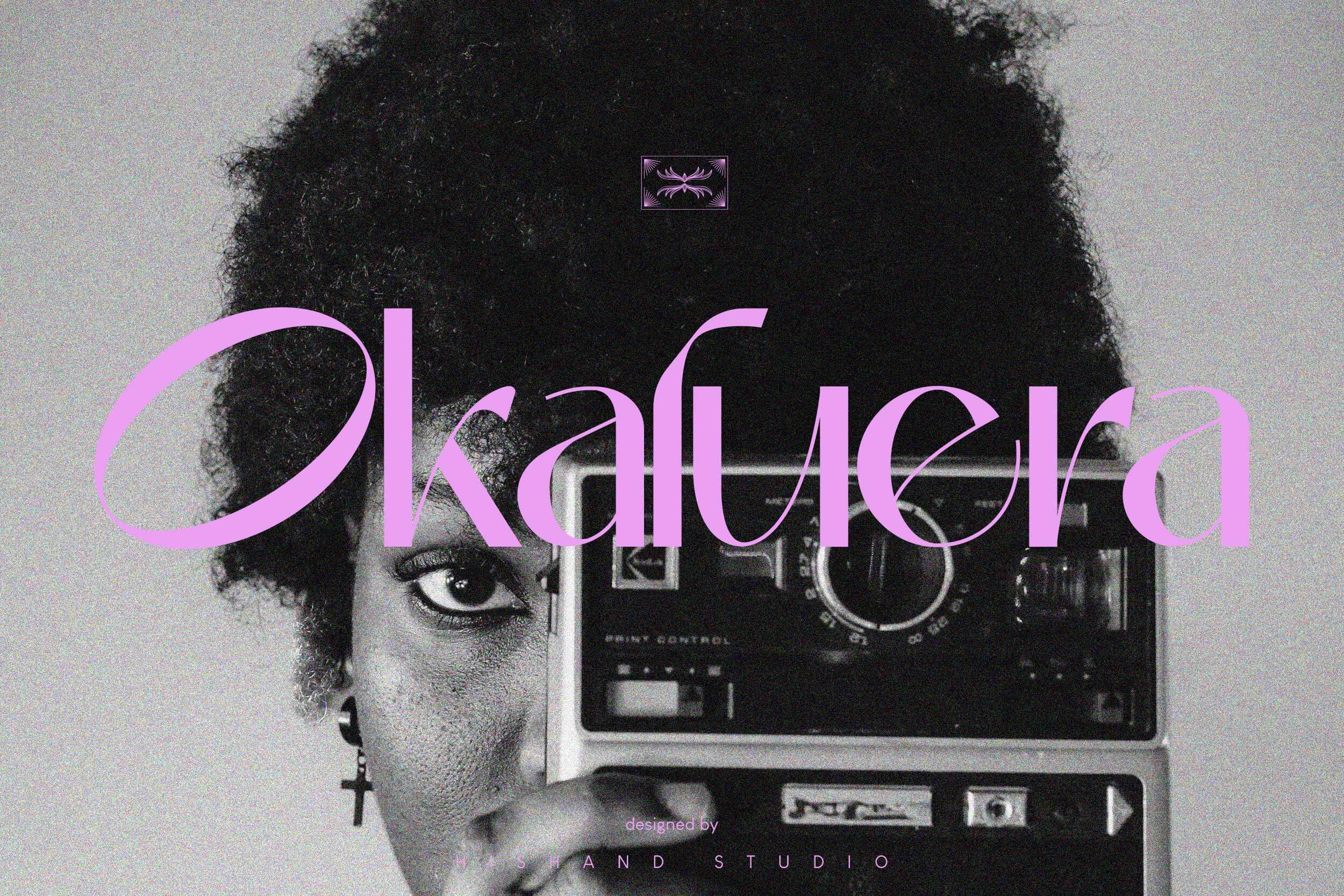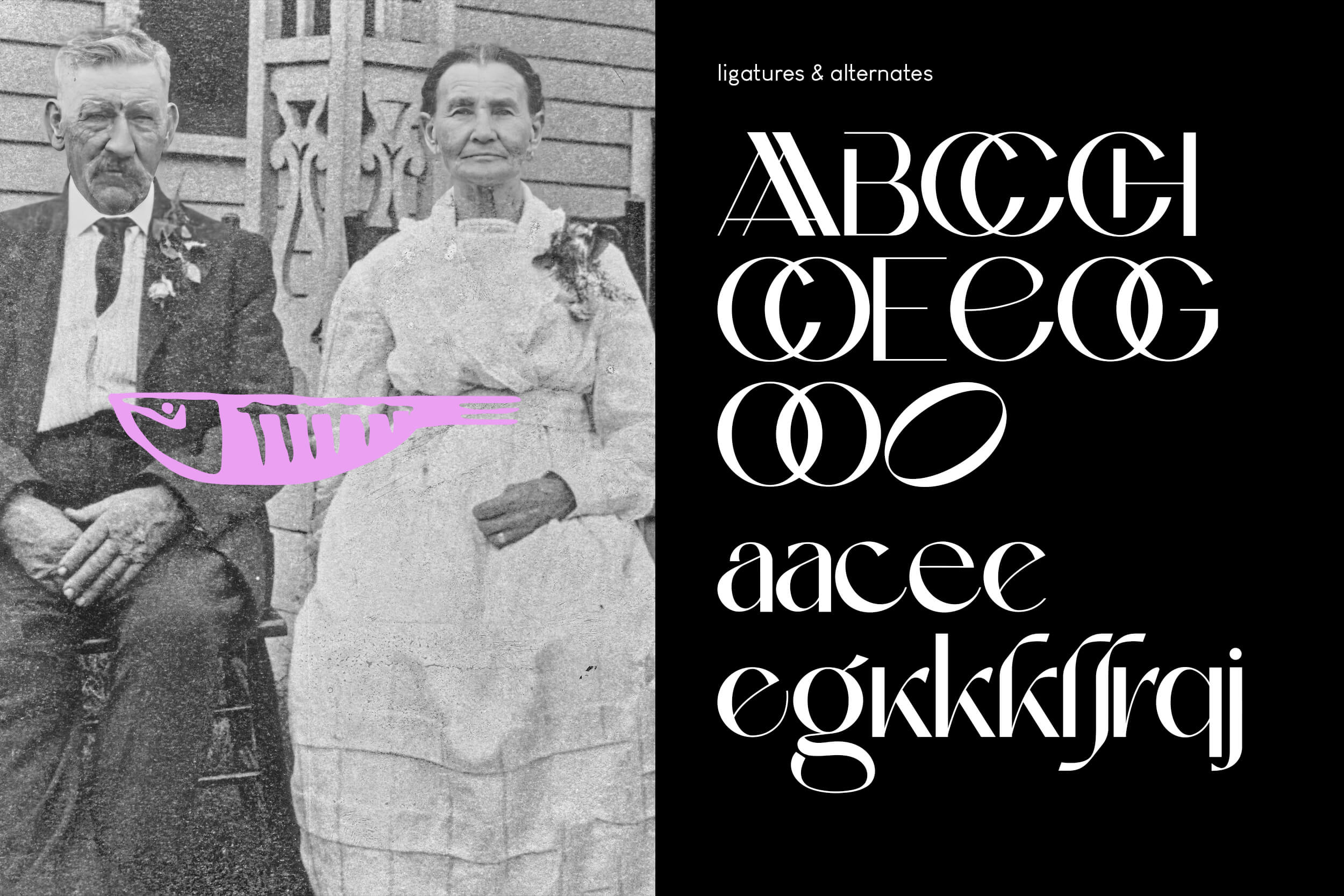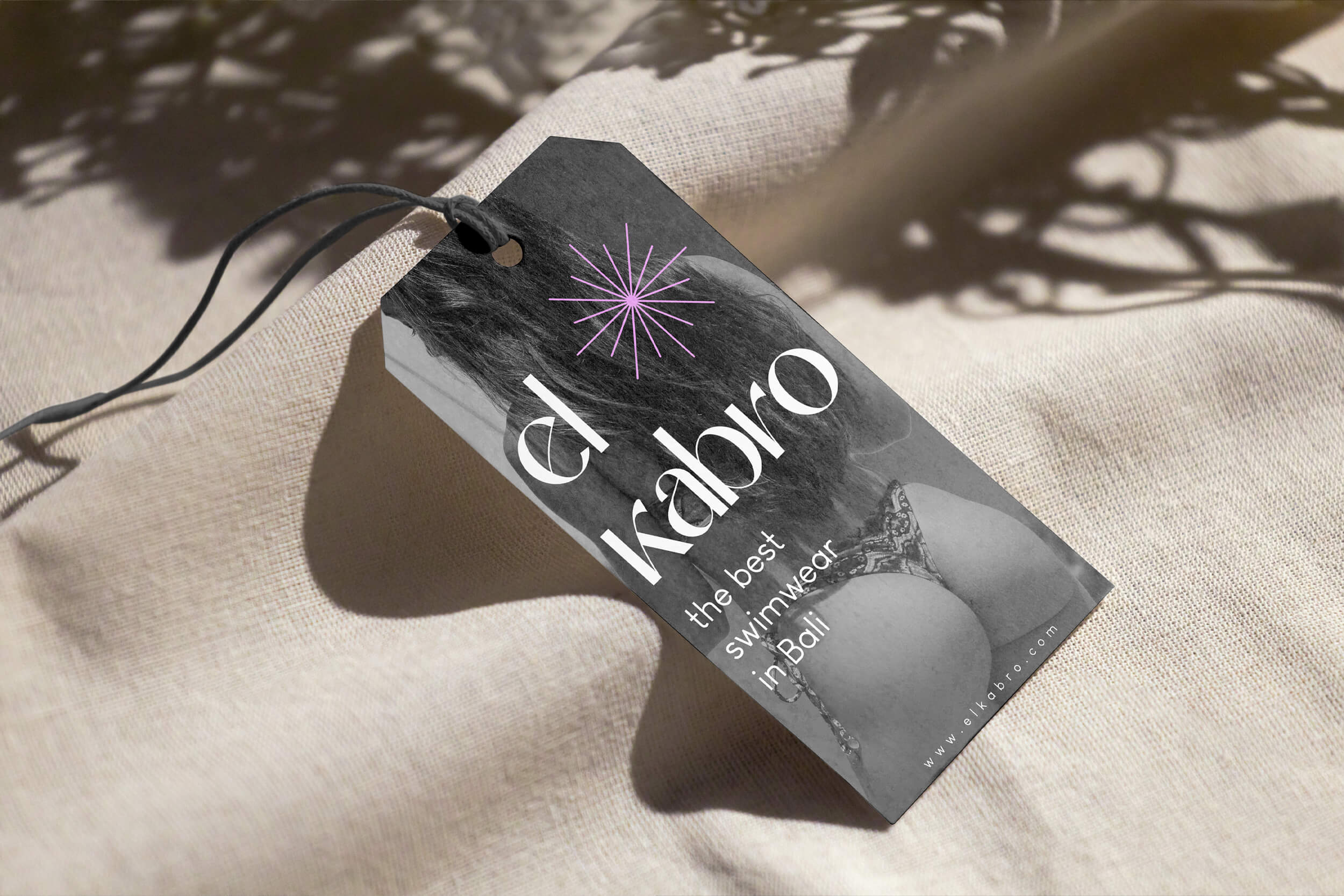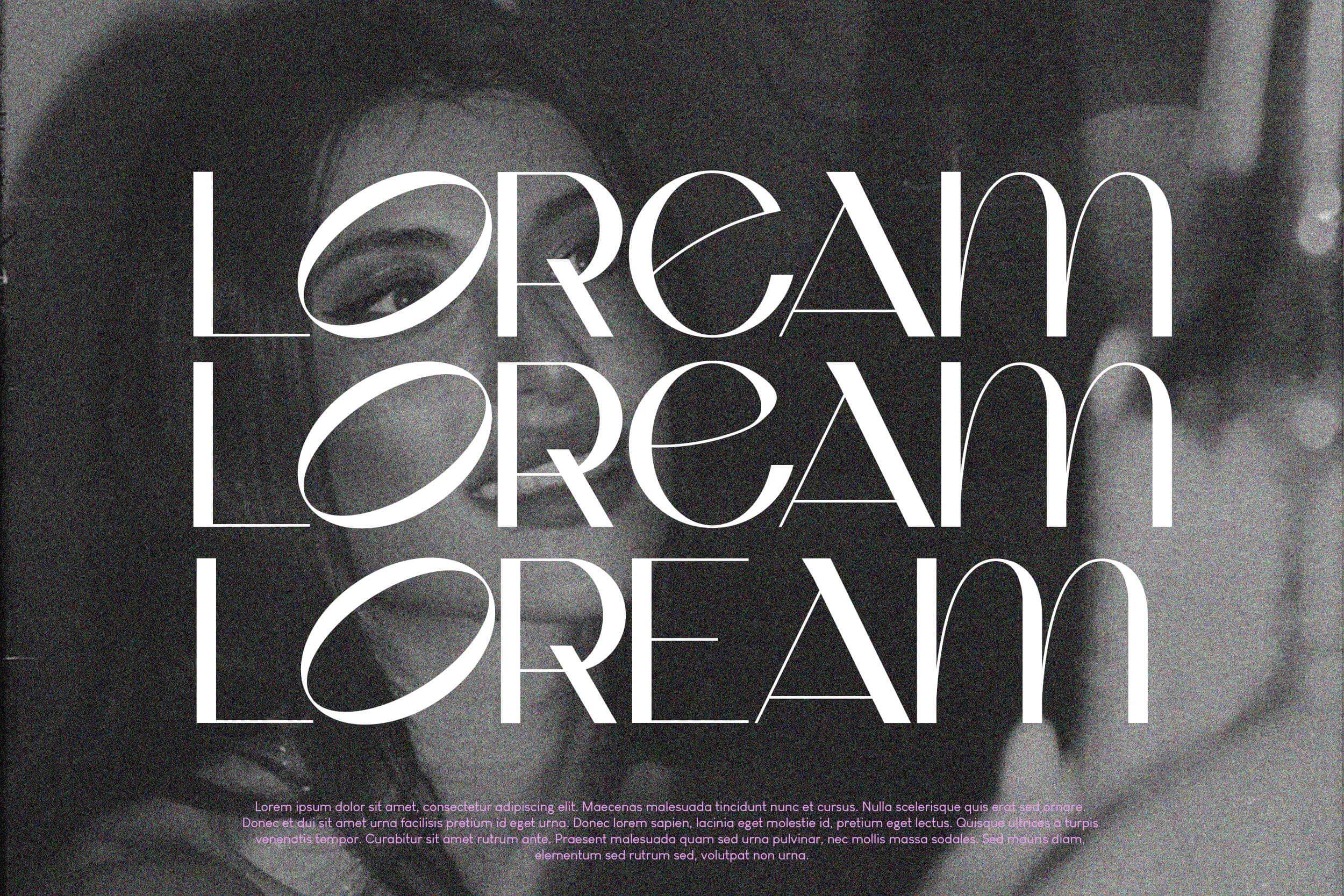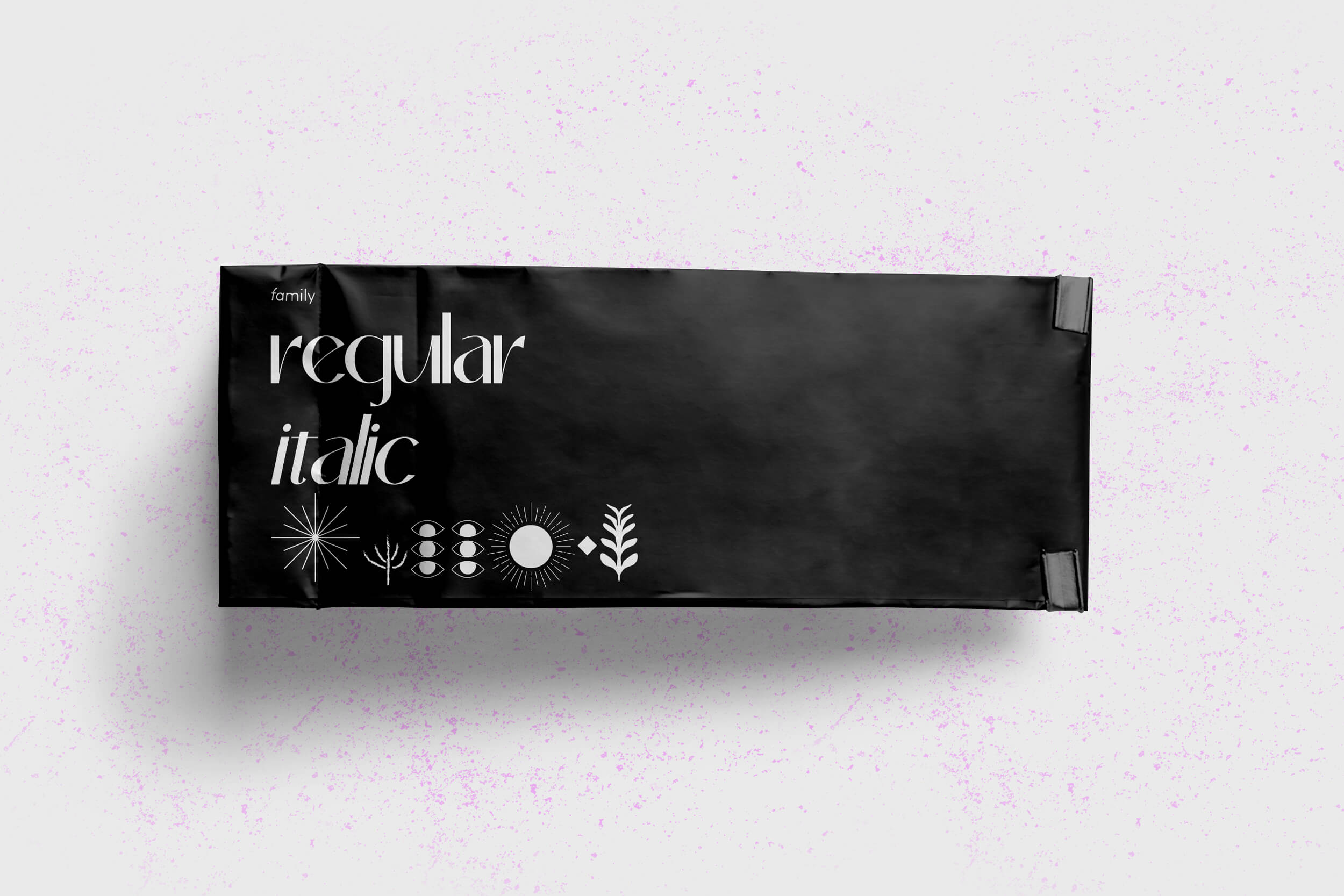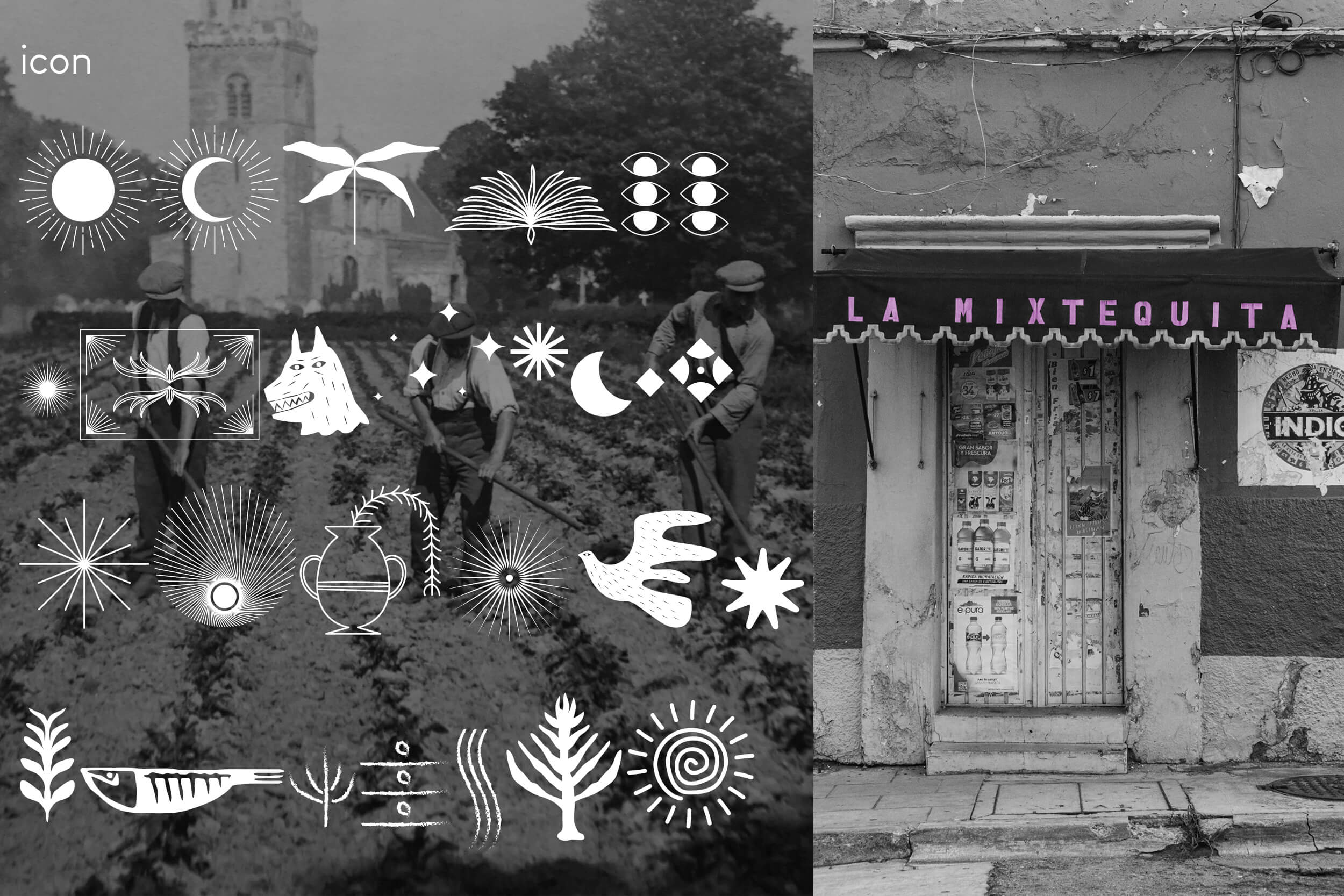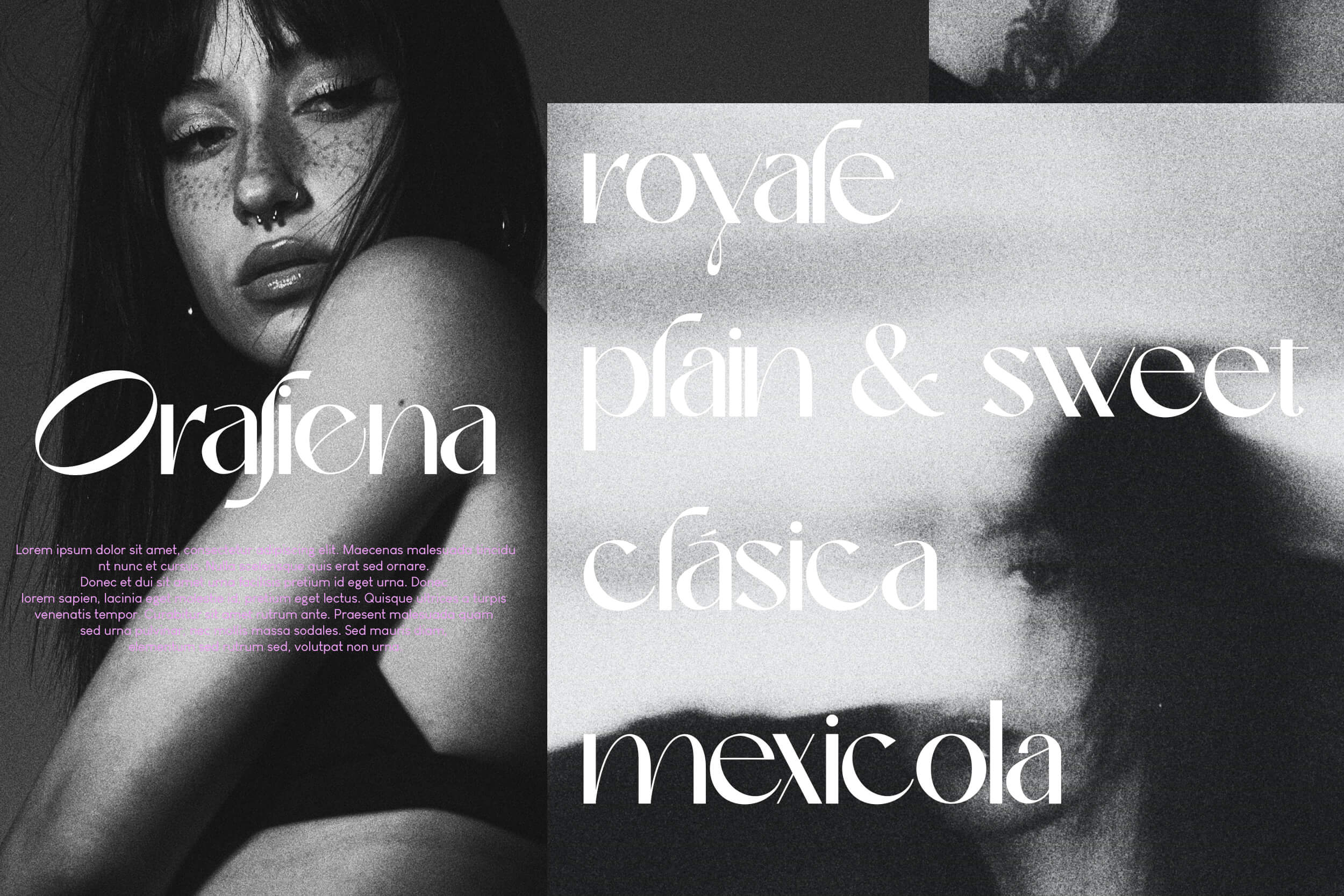
classy sans serif font
Okaluera
Okaluera Italic
Okaluera Icon
Okaluera Sans Serif font seamlessly blends elegance and luxury with a touch of minimalism, creating a sophisticated visual experience. Its sleek and graceful letterforms exude opulence, making it ideal for projects that demand a touch of class. The font’s minimalist design adds a sense of modernity, ensuring it remains versatile for various applications. Whether used in print or digital media, Okaluera effortlessly captures attention, making a bold statement with its refined aesthetics. Good for logos, branding, invitations, stationery, wedding designs, social media posts, and much more. Complete with
Okaluera – Classy Sans Serif Font